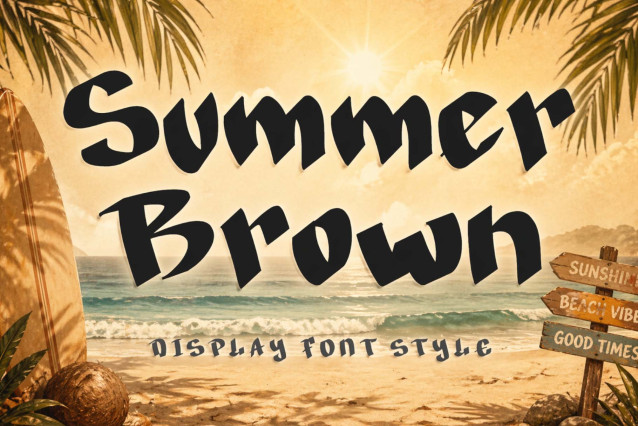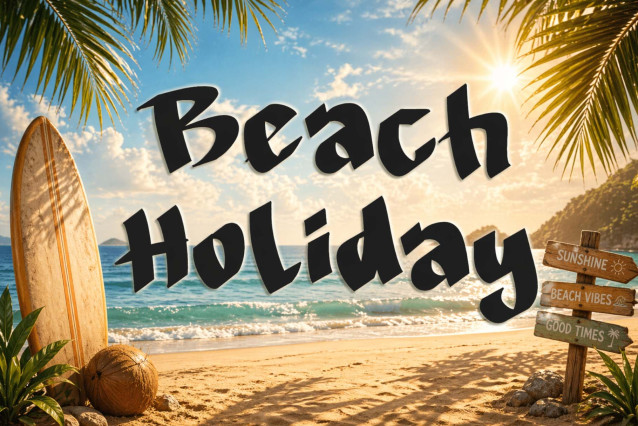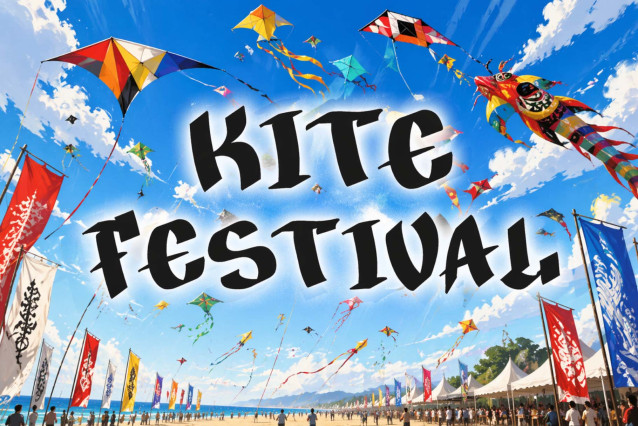
Summer Brown Font
“Summer Brown” is a cute display font. It features uppercase and lowercase letters, numbers, punctuation, and multilingual support. It’s suitable for Easter, vacation, holiday, banners, posters, animals, cats, dogs, holidays, spring, summer, christmas, back to school, Halloween, movie titles, comic titles, stickers, posters, banners, prints, branding, and more.